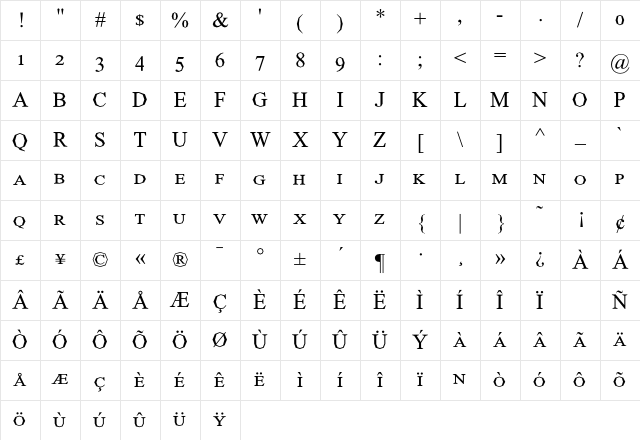
Tim Expert
Style: Expert
Design Context for Tim
Tim is a composed and adaptable typeface that performs quietly and consistently across a wide range of design contexts.